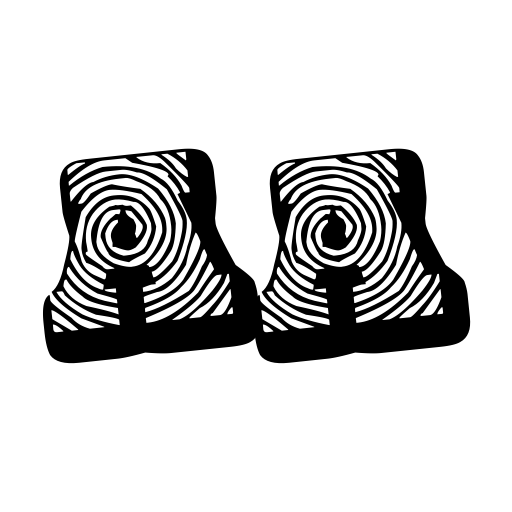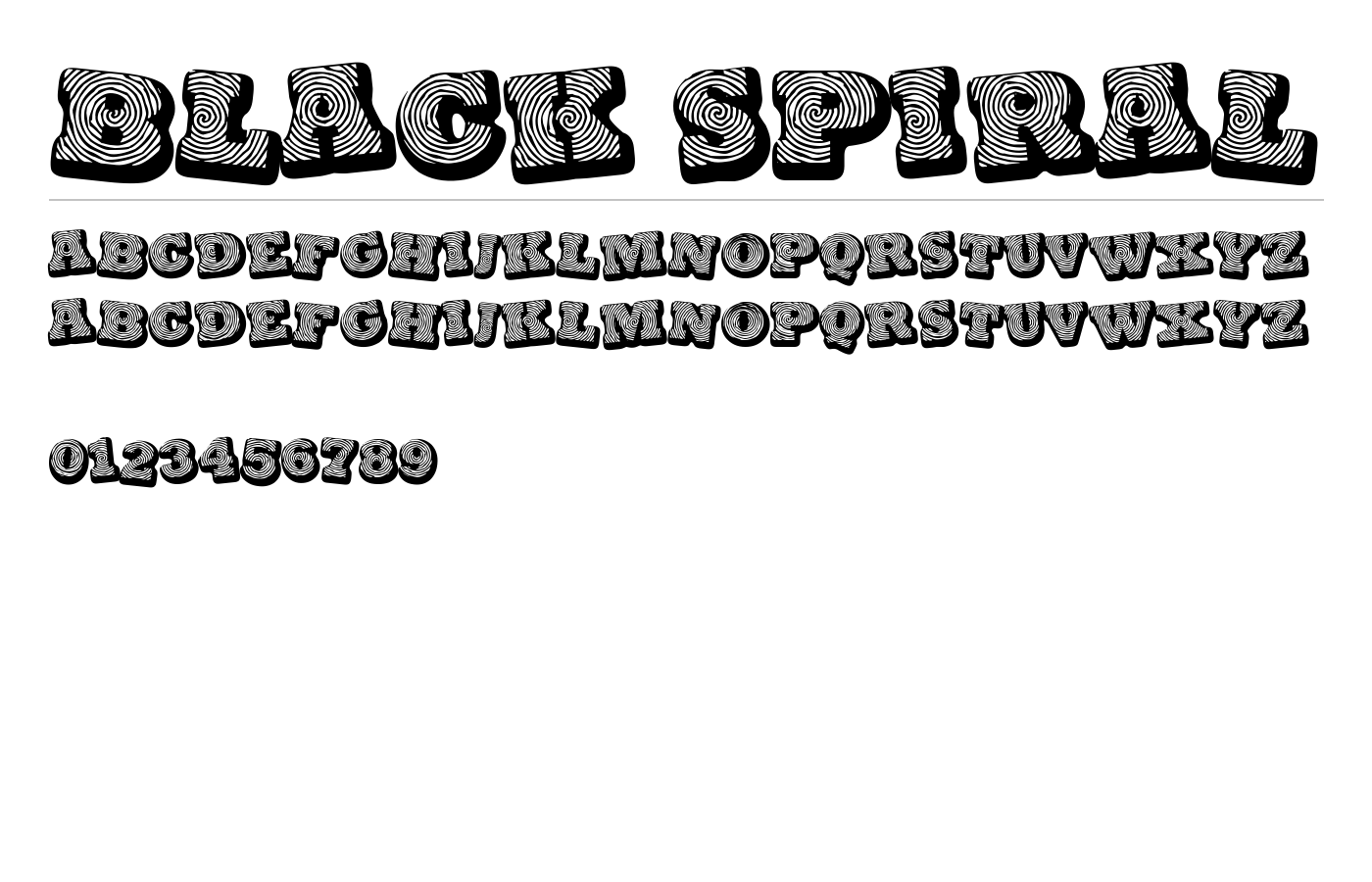
Black Spiral is a bold, playful display font featuring thick, rounded letterforms filled with hypnotic spiral patterns that create a lively, textured effect. Its unique, whimsical style is perfect for eye-catching headlines, posters, and branding that aim to convey fun, creativity, and a retro or psychedelic vibe. This font stands out best in decorative and artistic contexts, where its bold personality can grab attention and make a strong visual impact.
Black spiral Font
About Black spiral Font
| Font family | Black spiral Font |
| Designer | max infeld |